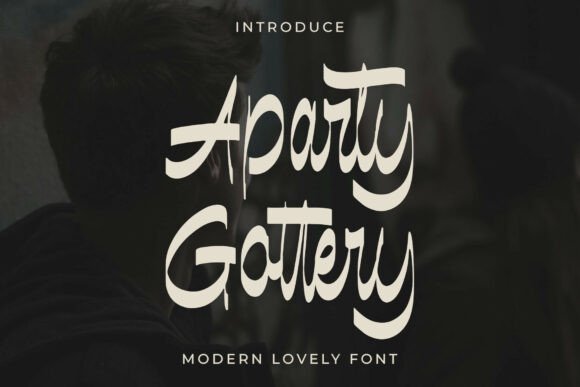
Remember the moment when you finally land on the perfect font for your design project? The one that perfectly captures the essence of your idea and elevates it to the next level? For designers, this moment is a game-changer. It’s the spark that sets off a creative chain reaction, and we’re excited to share with you a font that’s sure to ignite that spark.
Introducing the Aparty Gottery Font, a bold retro script font style with a rounded touch that’s ready to take your designs to new heights. With its comprehensive character set and multi-lingual support, this font is perfect for logotype, stickers, packaging design, and any other project that requires a unique touch.
Aparty Gottery Font Key Features
- Unique Characteristics: Aparty Gottery Font features a unique blend of modern and vintage elements, with intricate details and ornaments that add a touch of elegance to any design.
- Customization Options: Aparty Gottery Font offers advanced customization options, including ligatures, swashes, and ornaments, allowing designers to add a personal touch to their work.
Aparty Gottery Font Review
I recently had the chance to work with the Aparty Gottery Font, and I must say it’s been an interesting experience. Here are my thoughts on what works well and what doesn’t.
- Unique Personality – Aparty Gottery Font has a distinct and quirky character that can add a touch of whimsy to any design project.
- High-Quality Rendering – The font is well-crafted and displays beautifully at various sizes and resolutions.
- Good Legibility – Despite its playful nature, the font is still easy to read, even at smaller sizes.
- Limited Font Size Range – Aparty Gottery Font is best suited for larger font sizes, as it can become too condensed at smaller sizes.
- Not Ideal for Body Text – The font’s unique character makes it more suitable for headlines and titles rather than body text.
While Aparty Gottery Font has its limitations, it’s still a great addition to any designer’s toolkit. Its unique personality and high-quality rendering make it perfect for projects that require a touch of whimsy and playfulness.
Aparty Gottery Font is suitable for various design projects, including:
- Party and event promotional materials
- Custom graphics and illustrations
- Typography-based art and designs